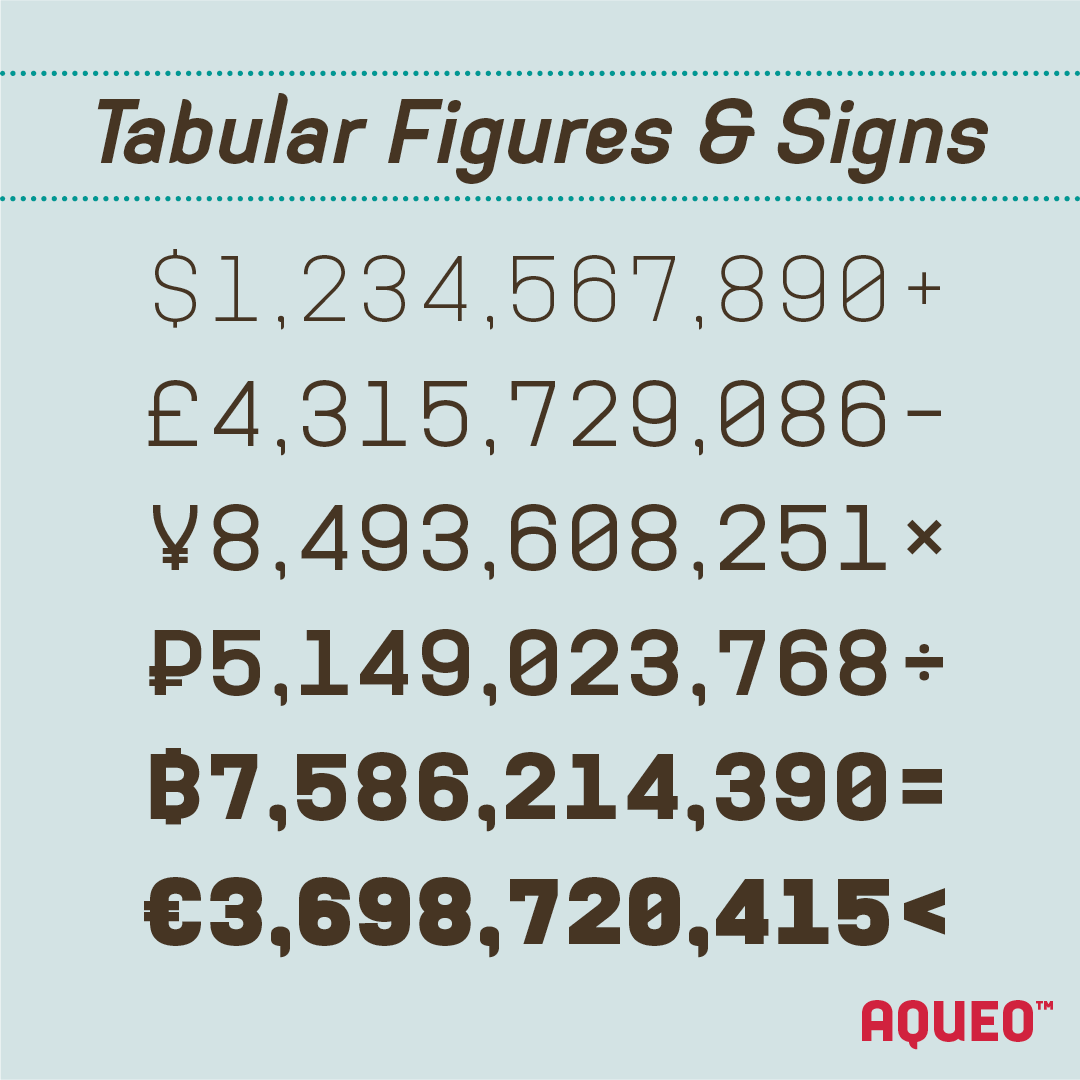
Aqueo™ is a versatile display font family inspired by the cylindrical wireframe of a water glass. The one-sided round corner details added a contemporary feel to this unique typeface. This typeface comes in 6 weights and 12 styles. To ensure the accuracy of the letterforms, we create a master font set for each weight. And with over 1,350 glyphs each, Aqueo™ fonts support most Latin-based languages and feature an extensive set of stylistic alternates; The standard uppercase set takes more traditional forms, while the alternate uppercase set sports unorthodox lowercase forms. The standards exude confidence and dependability yet are friendly and approachable, and the alternates elicit more fun, quirky and whimsical.
Aqueo™ Display Sans Serif comes loaded with Opentype features such as case-sensitive marks, punctuations and mathematic symbols. It also has an extensive set of discretionary ligatures, stylistic alternates, and over 80 essential UX/UI icons, each in three design options. These various Opentype features help improve your user experience, streamline your workflow, and unlock a broader range of typography details you can choose for your design. If you’re looking for a unique contemporary typeface, try Aqueo™ on your packaging design, logo design, infographic, print design, store signages, and UX/UI projects today!
FEATURE HIGHLIGHTS:
Come with over 1,350 glyphs
80 UX/UI icons, each coming in 3 styles (a total of 240 icons)
150+ standard and discretionary ligatures
Case-sensitive marks, punctuations, and math symbols
Support 200+ Latin-based languages. (See Aqueo™ glyphs table for details)